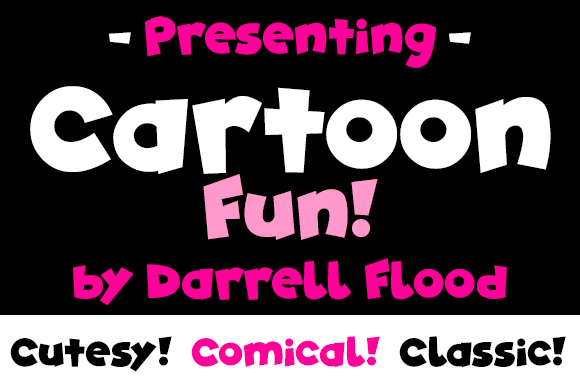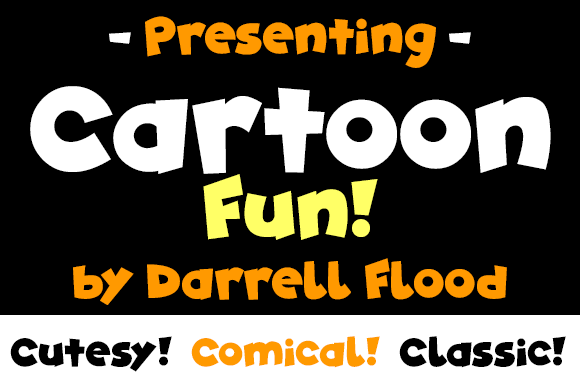
Cartoon Fun Font
Cartoon Fun is an energetic and expressive display font. It is perfect for animation, games, school projects and more. Add some fun and joy to your creations with this cute font!